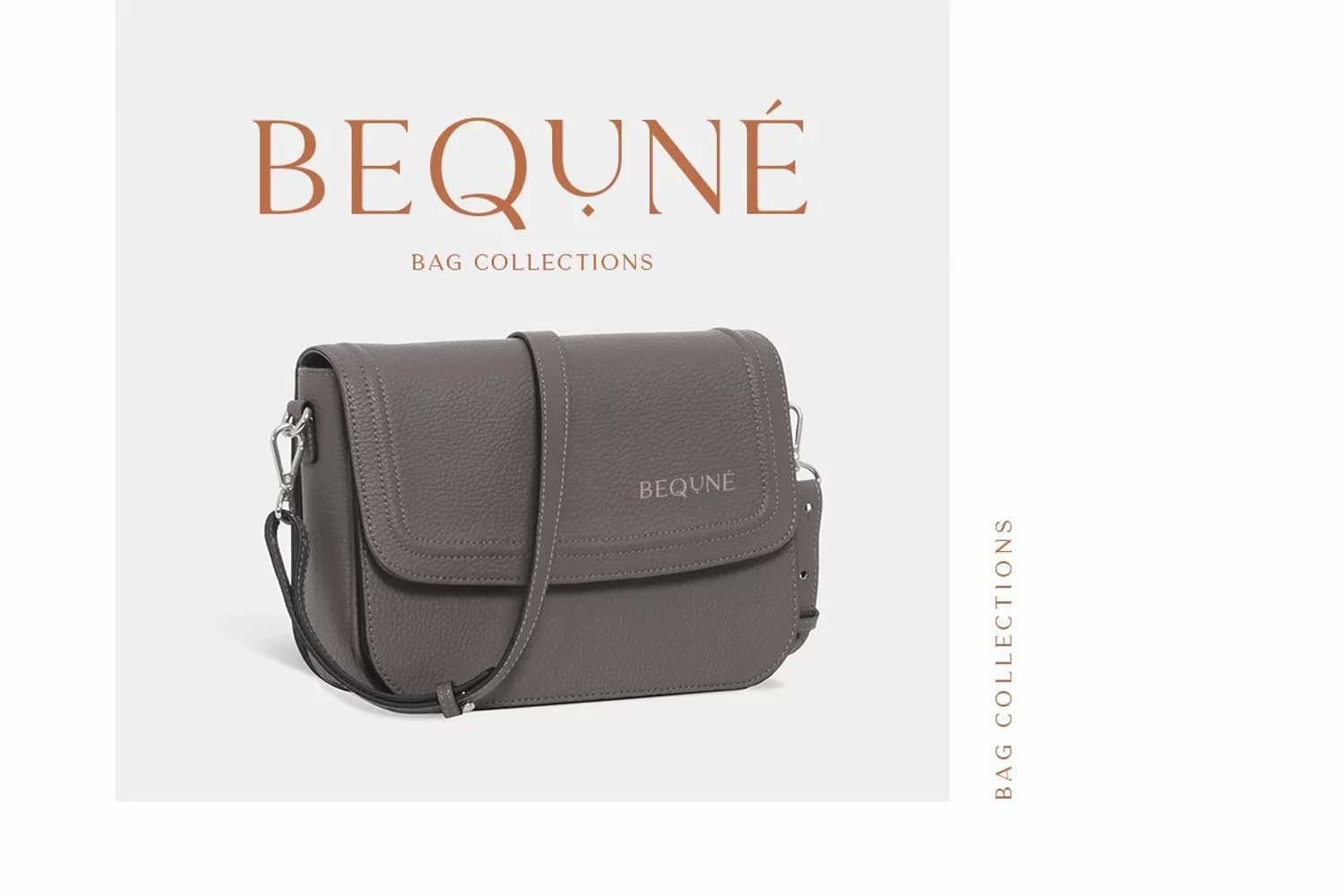
Hisquins is a serif based font with unique lowercase & uppercase that will make your design looks minimalist yet modern. You can use this font for any purpose, especially for logotype. This font also suitable for branding. You can mix and match the uppercase and lowercase to make your logo more unique and stand-out. This font also support multi language!